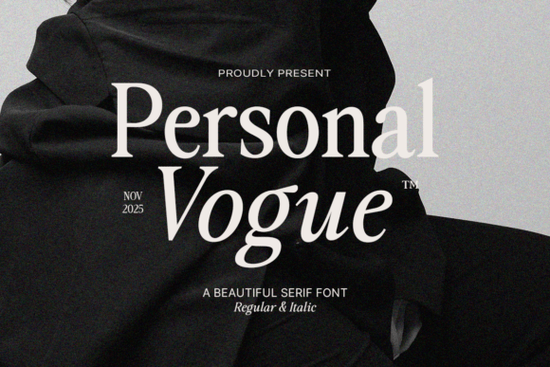
If you're looking for a font that combines classic elegance with modern sophistication, the Personal Vogue Font is a great choice. This high-contrast serif typeface is designed to add a touch of luxury and refinement to any design project.
What Makes Personal Vogue Font Stand Out?
The Personal Vogue Font is a stunning revival of the classic Bodoni style, but with a contemporary twist. Its most distinctive feature is the dramatic contrast between thin hairlines and thick, commanding main strokes. This interplay creates a striking visual effect that exudes both elegance and strength.
The beautifully curved terminals and tall, proud ascenders give every word an aspirational, editorial feel. Whether you're working on a high-end fashion branding project or a sophisticated magazine layout, this font can help you achieve a premium, luxurious look.
Why Choose Personal Vogue Font?
One of the key reasons to choose the Personal Vogue Font is its versatility. The family includes both a classic Regular and a captivating Italic style. The Italic variant, in particular, features beautifully flowing and slightly slanted letterforms that maintain high legibility while adding a unique rhythmic movement. This makes it ideal for both impactful headlines and refined body copy.
Additionally, the comprehensive glyph set and extensive language support ensure that this font can be used in a wide range of global design projects. Whether you need to create a multilingual brochure or a high-end product packaging, Personal Vogue has you covered.
Where Can You Use Personal Vogue Font?
The Personal Vogue Font is perfect for a variety of design applications. Here are some ideas:
- High-End Fashion Branding: Add a touch of luxury to your fashion brand's logo, business cards, and marketing materials.
- Magazine Layouts: Create elegant and eye-catching headlines and body text for your magazine articles.
- Luxury Product Packaging: Elevate the look of your product packaging with this sophisticated and refined font.
- Exclusive Digital Interfaces: Use Personal Vogue to enhance the user experience on your website or app, especially in sections where conveying prestige is important.
How Does Personal Vogue Compare to Other Serif Fonts?
While there are many excellent serif fonts available, the Personal Vogue Font stands out for its unique blend of classic and modern elements. For example, if you compare it to other popular serif fonts like Blistaro or Muzzaro, you'll notice that Personal Vogue offers a more dramatic and luxurious feel. Its high-contrast design and beautifully curved terminals make it particularly well-suited for high-end and editorial designs.
Tips for Using Personal Vogue Font Effectively
To get the most out of the Personal Vogue Font, here are a few tips:
- Pair with Complementary Fonts: Consider pairing Personal Vogue with a clean, sans-serif font for a balanced and modern look. For example, you could use Carnival Lights for a playful yet professional touch.
- Use Adequate Spacing: Ensure that the spacing between letters and lines is appropriate to maintain readability, especially when using the Italic style.
- Test on Different Backgrounds: Before finalizing your design, test the font on various backgrounds to ensure it maintains its clarity and elegance.
Final Thoughts
The Personal Vogue Font is a versatile and elegant choice for designers, crafters, and small businesses looking to add a touch of luxury to their projects. Its high-contrast design and comprehensive glyph set make it a standout option for a wide range of applications. By following the tips above, you can effectively incorporate this font into your designs and create a truly premium and sophisticated look.